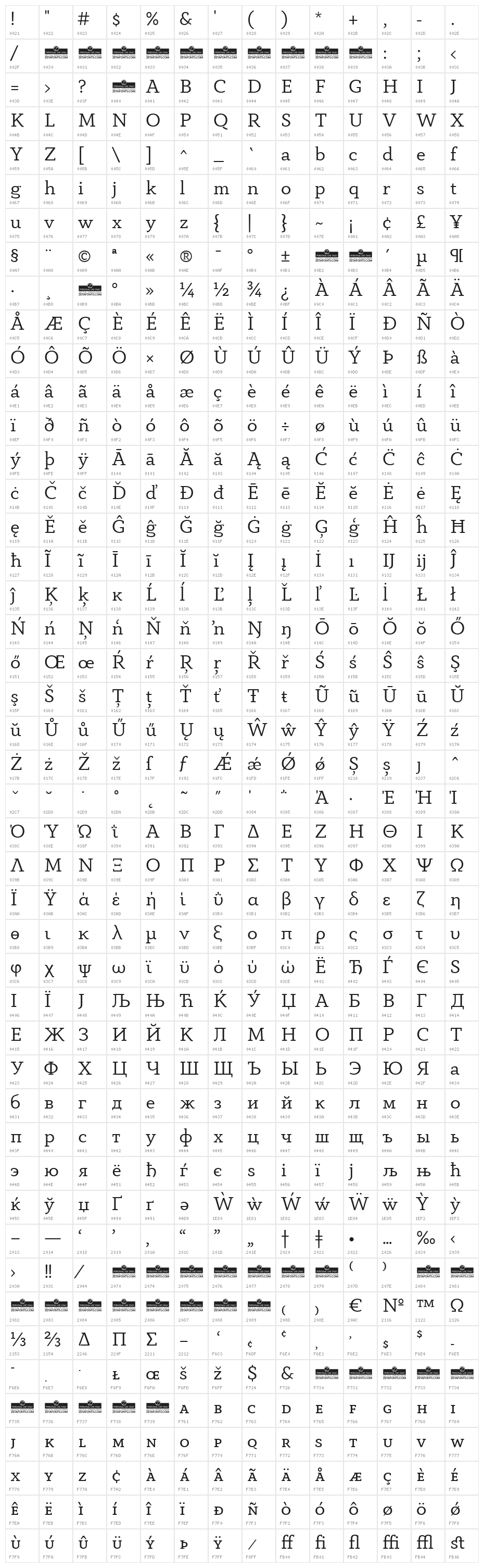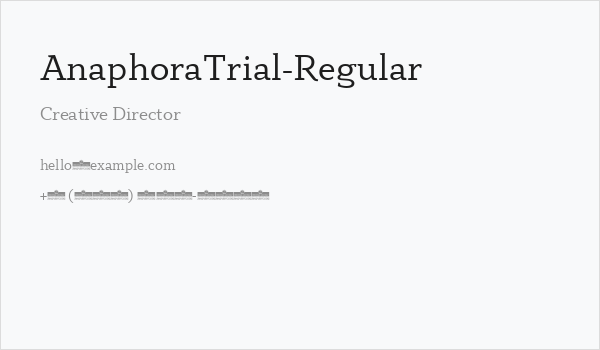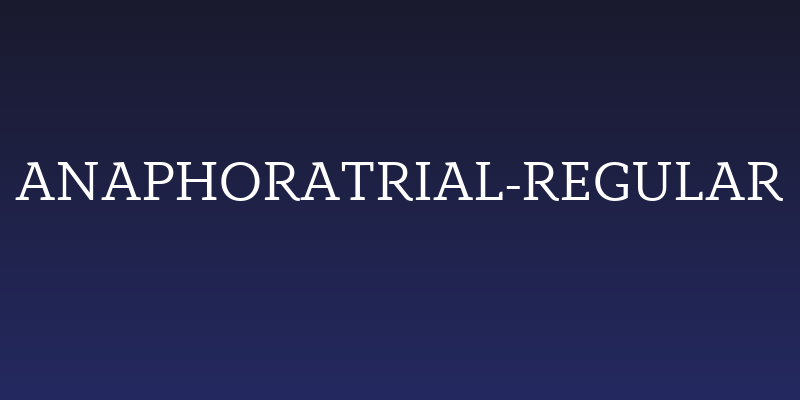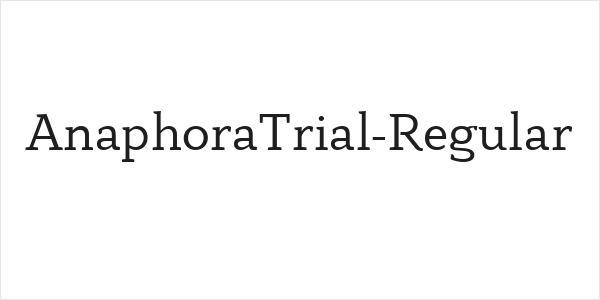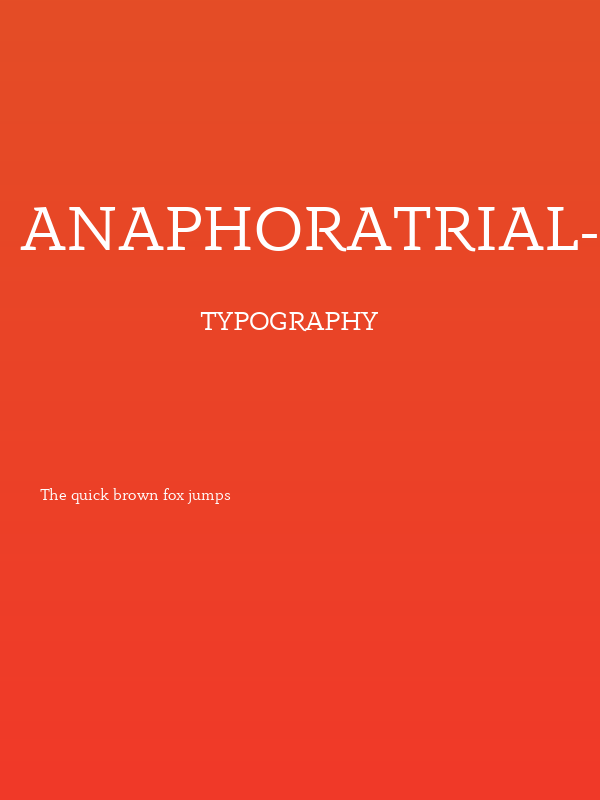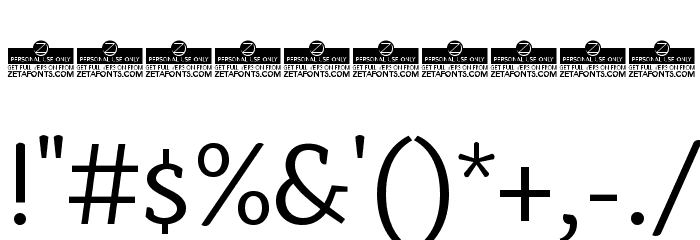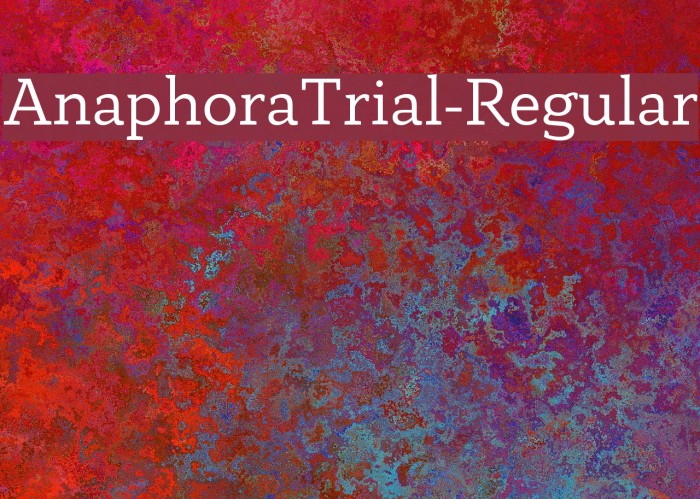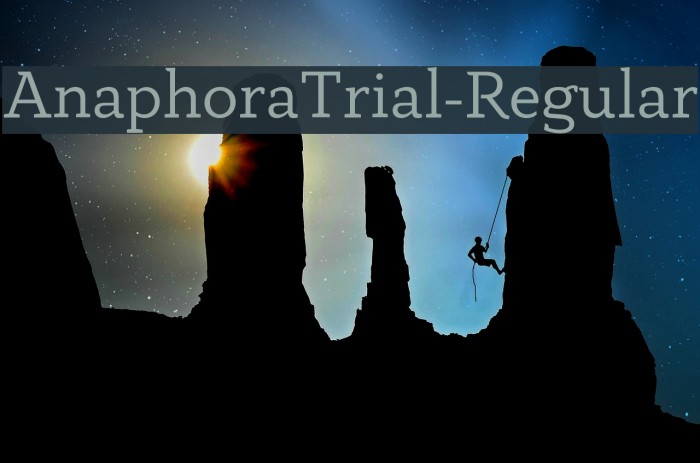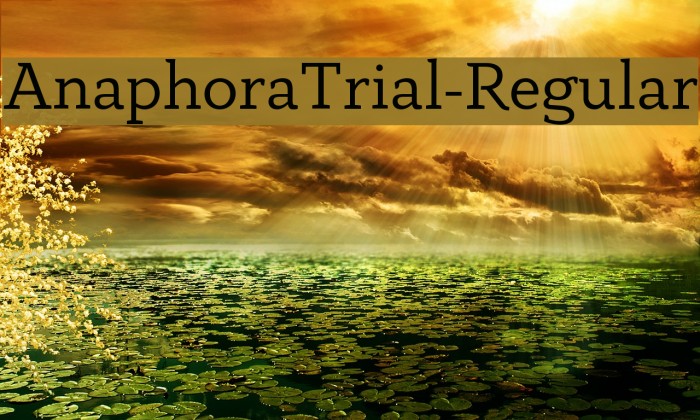
AnaphoraTrial-Regular Font
AnaphoraTrial-Regular Description
This typeface presents a classic serif style with a modern twist, characterized by its elegant and refined letterforms. The uppercase letters exhibit a strong presence with balanced proportions, while the lowercase letters maintain a harmonious flow. The numerals are clear and legible, making them suitable for various applications. Special characters are thoughtfully designed, ensuring consistency across the font. The overall appearance is sophisticated, making it ideal for formal and professional settings.
| Proposed Projects | Ideal for editorial design, book covers, formal invitations, and branding projects that require a touch of elegance. |